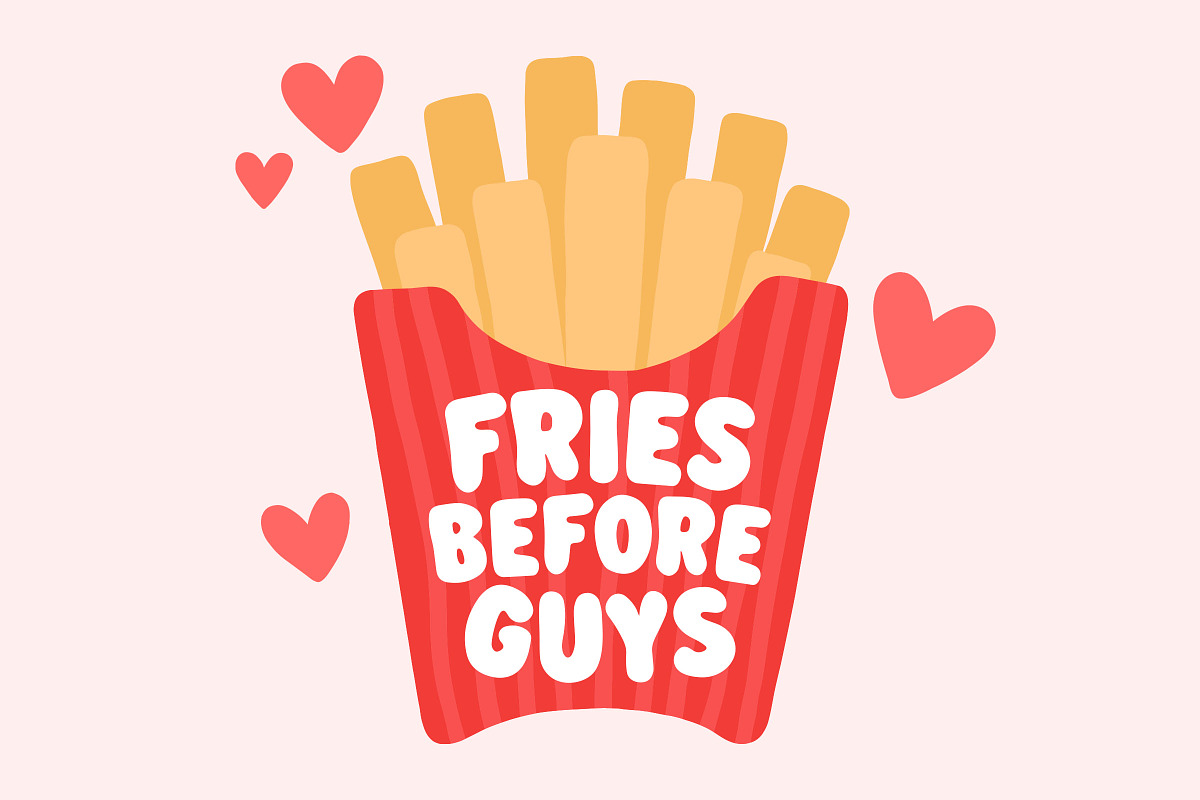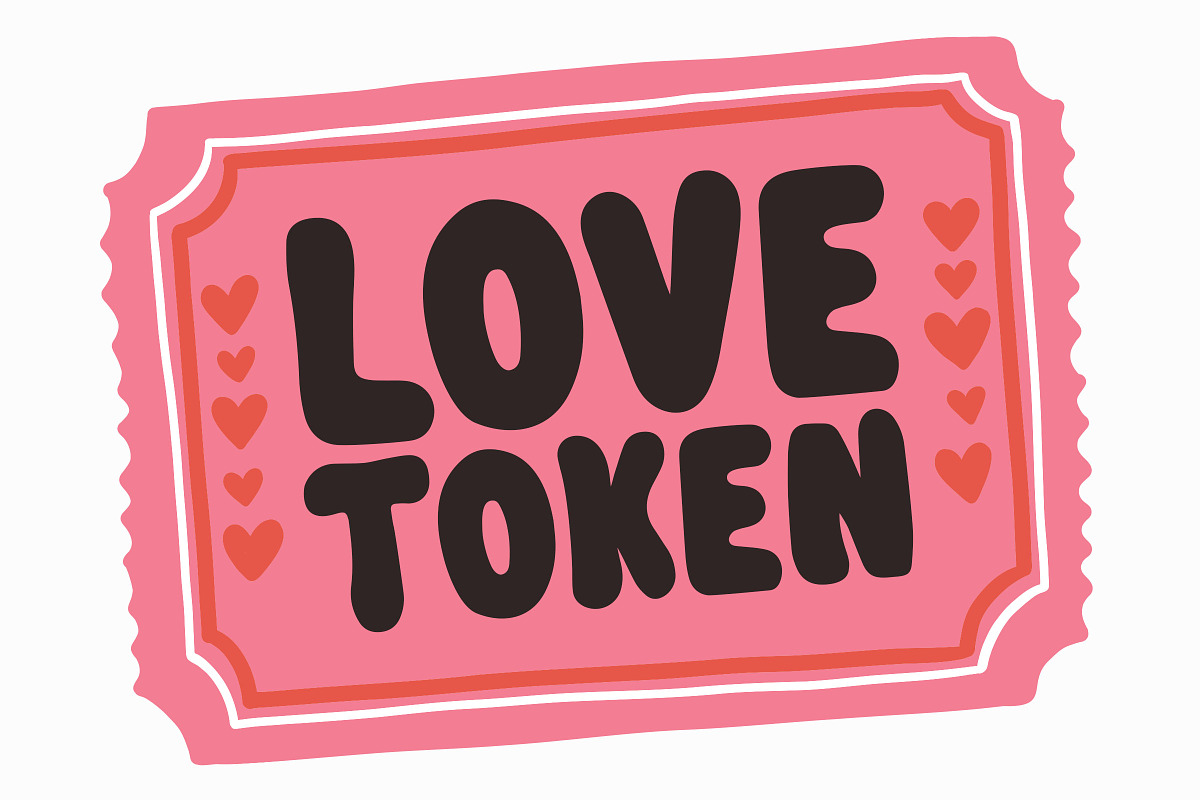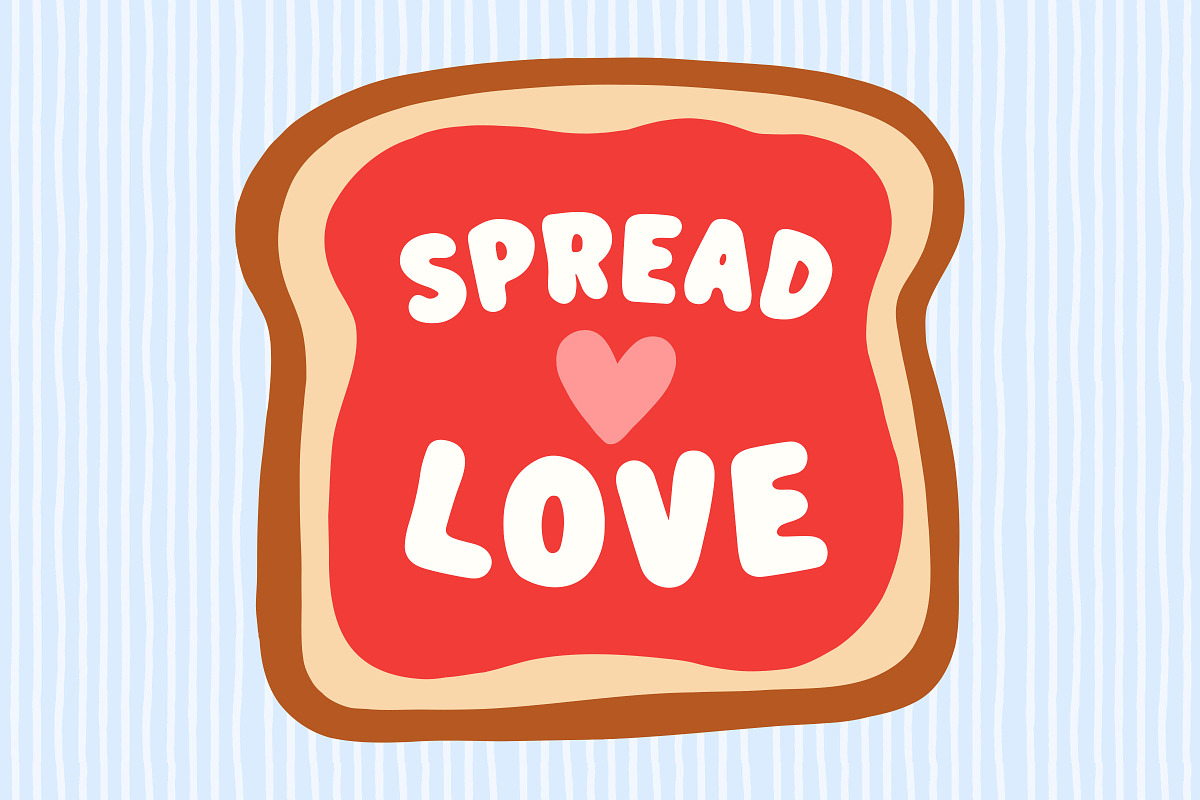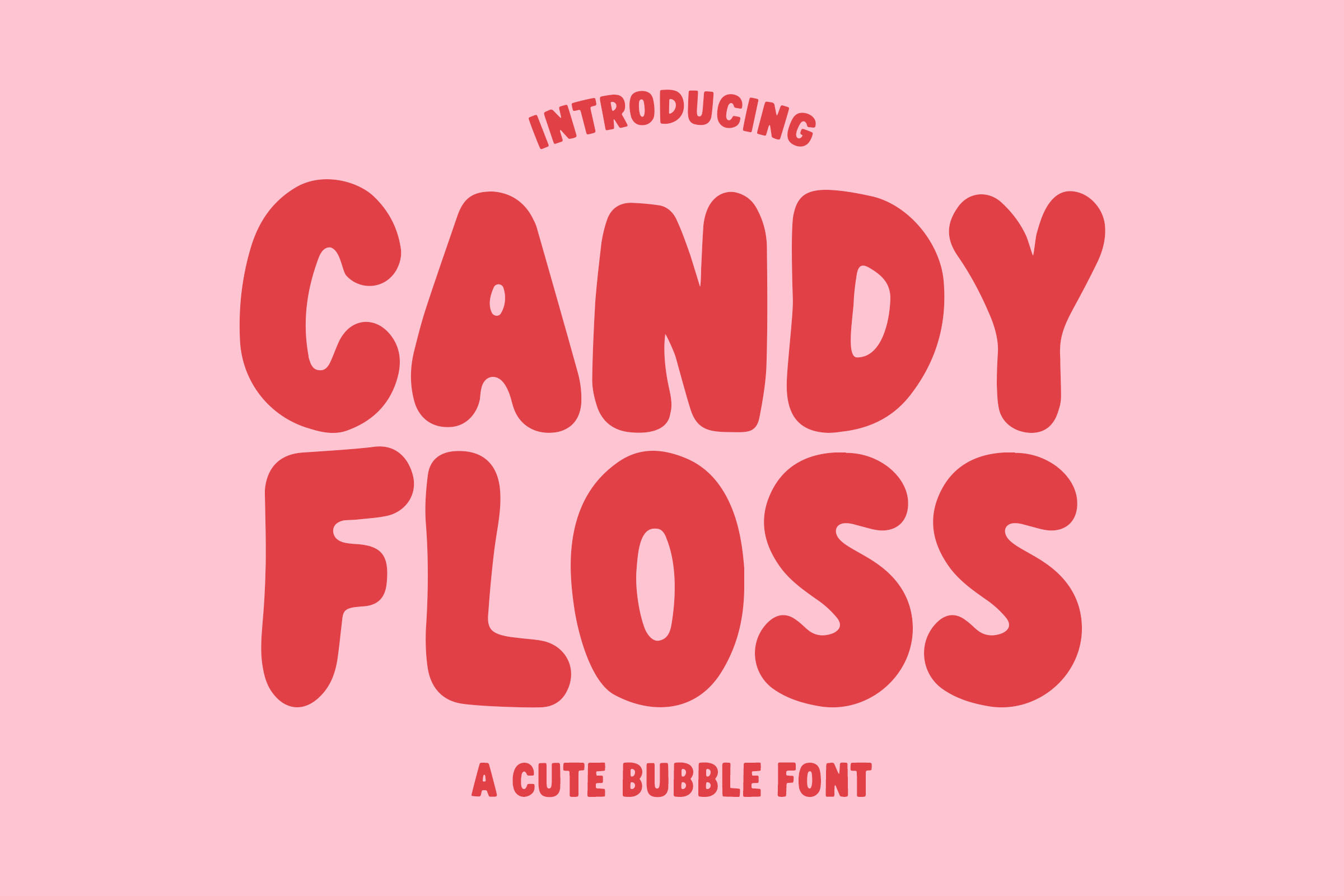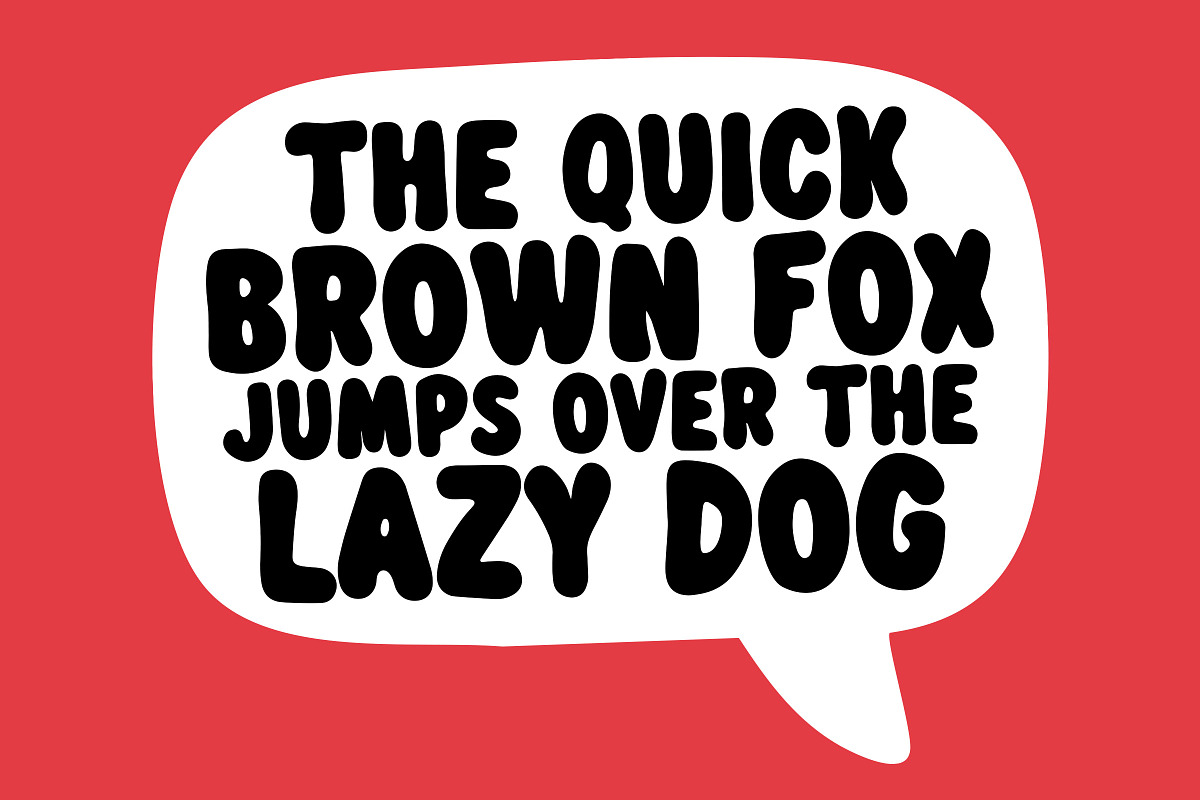
Candy Floss - Cute Bubble Font
Candy Floss is a fun cute bubble retro typeface perfect for any fun quirky design work! This font can be used for anything such as t-shirt designs, phone cases, greeting cards, invitations, mugs and so much more! Get creative!